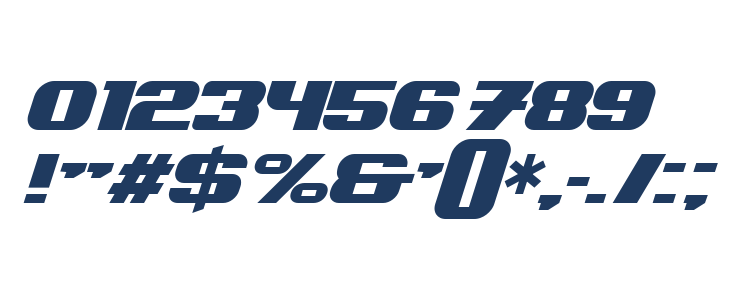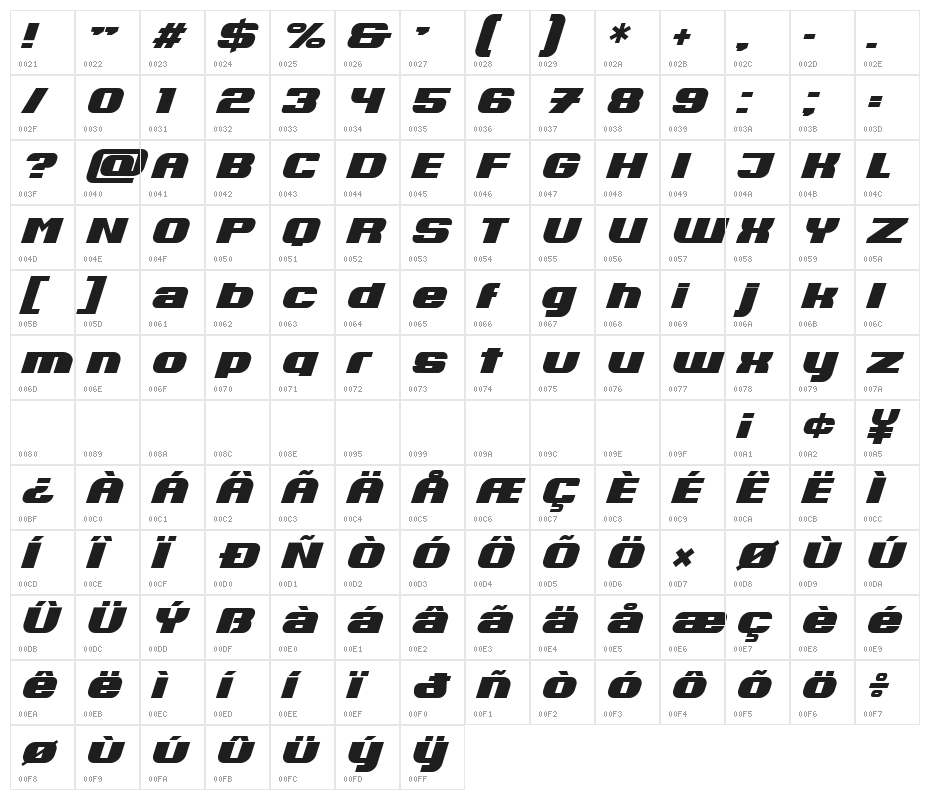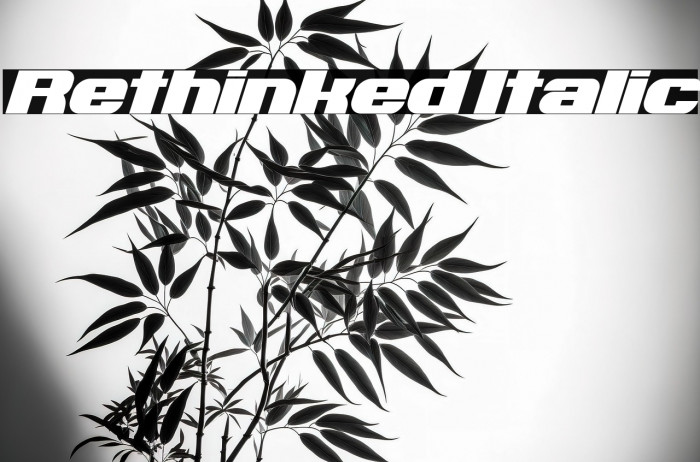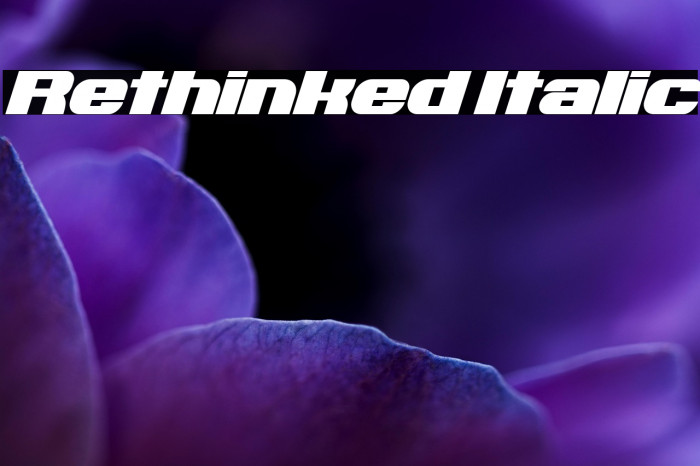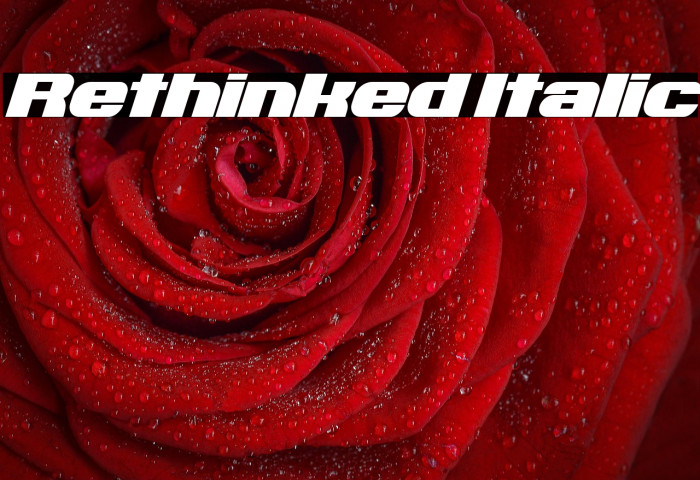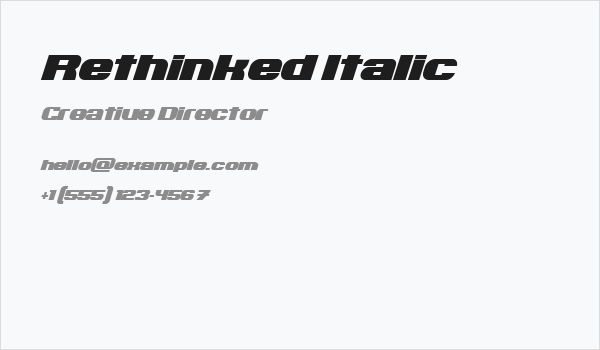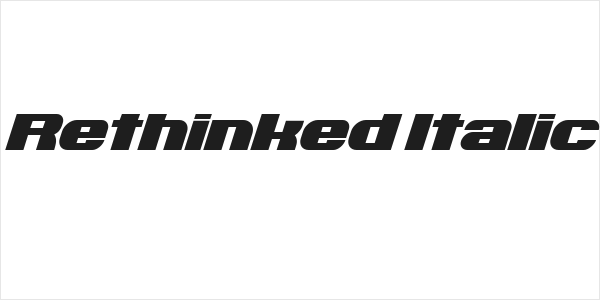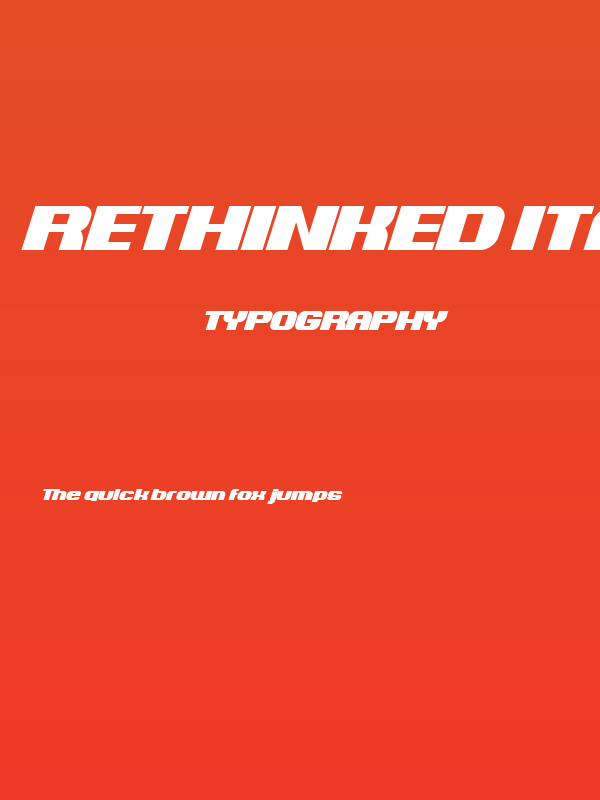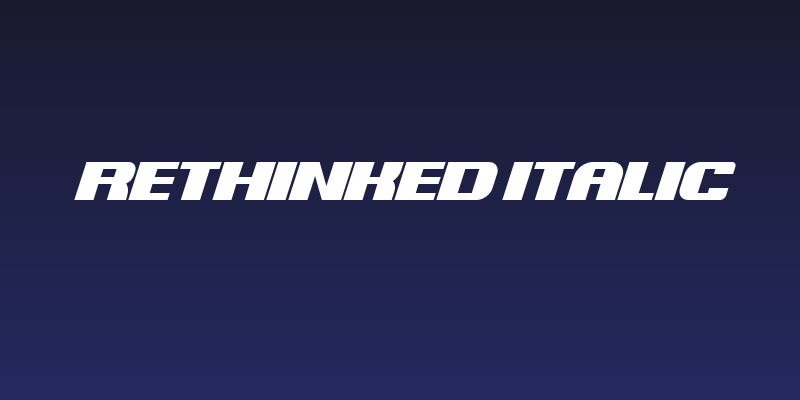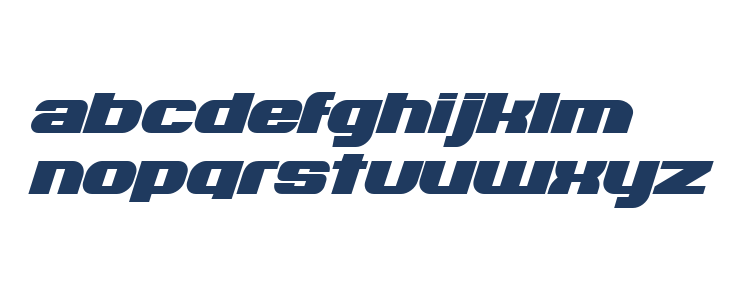
Rethinked Italic Font
Rethinked Italic Description
This font features a bold, italicized style with a strong, dynamic presence. The characters are designed with a forward slant, giving a sense of motion and speed. The strokes are thick and consistent, providing a robust and impactful appearance. The uppercase and lowercase letters maintain a uniform width, while the numerals and special characters complement the overall aesthetic. The font's design is modern and sleek, making it suitable for attention-grabbing headlines and branding projects.
| Proposed Projects | Ideal for sports branding, automotive advertisements, dynamic posters, and modern web design. |